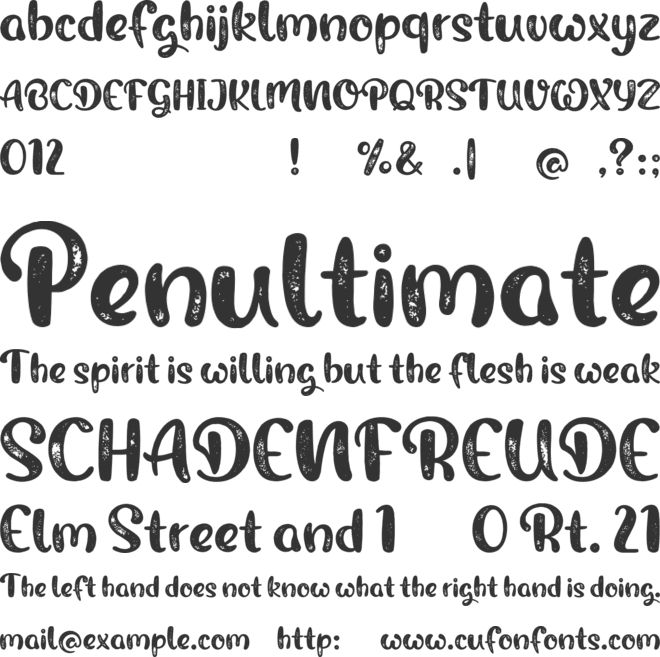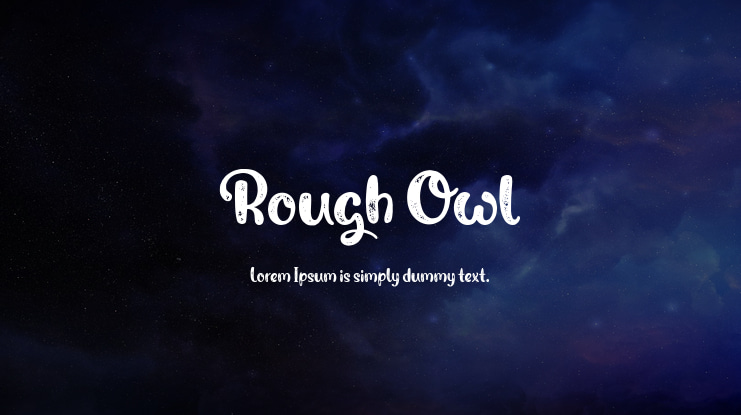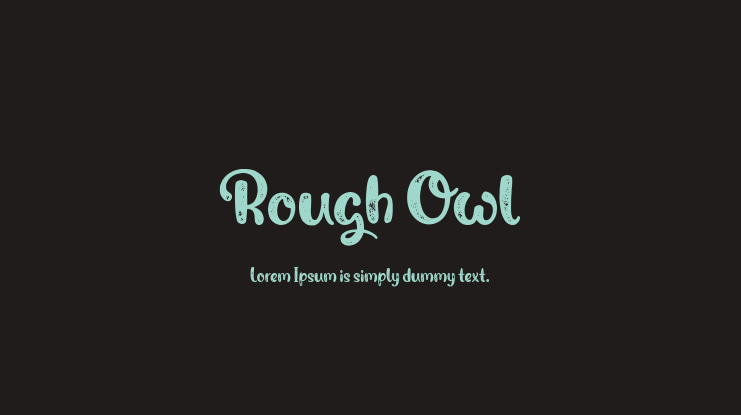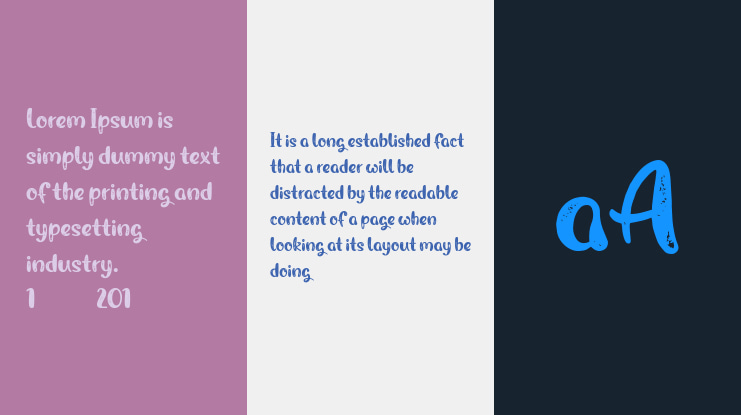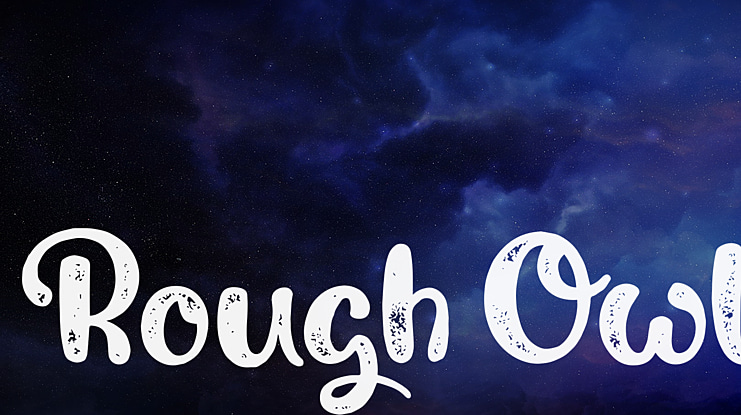
Rough Owl Font
After the release of our "Magic Owl" Typeface we're now introducing its evil brother: “Rough Owl”, is a playful handcrafted premium font with a subtle but still noticeable Grunge Effect that makes your design stand out and gives the font some vintage touches.